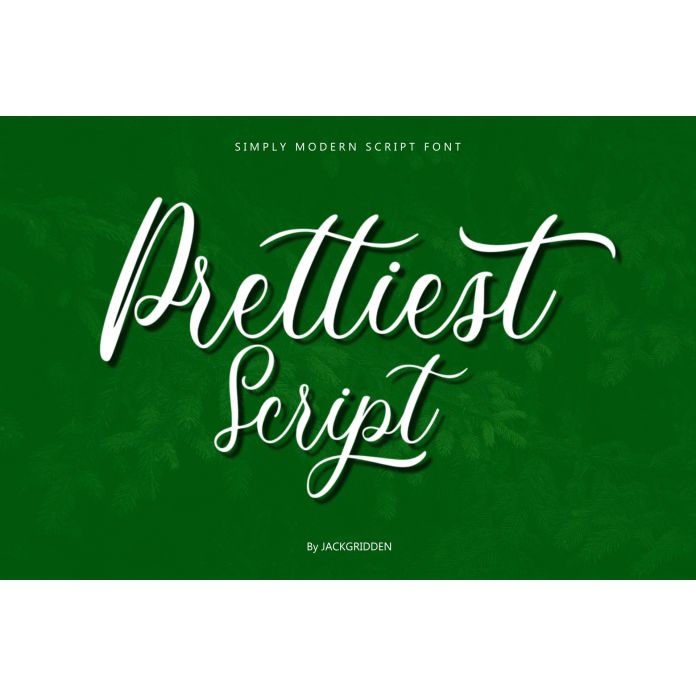
“Prettiest Script” is a stunning handwritten font that combines elegance and charm with its flowing, cursive style. Perfect for adding a personal touch to invitations, greeting cards, branding, and more, this font features beautifully designed letterforms with graceful loops and smooth connections. Whether you’re crafting a romantic note or a sophisticated logo, “Prettiest Script” will bring a touch of refinement and allure to your projects.